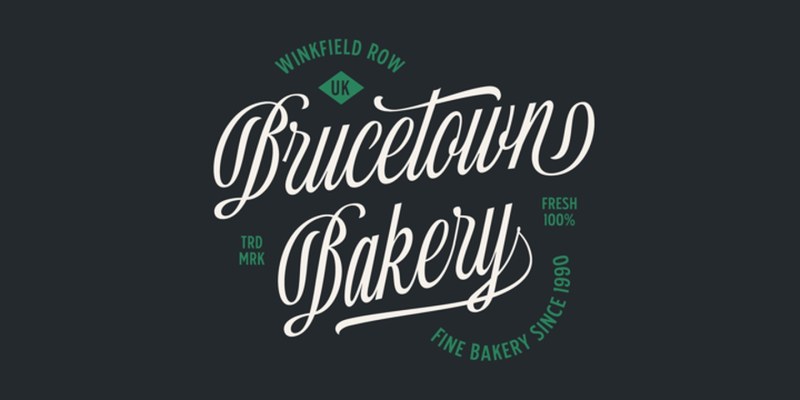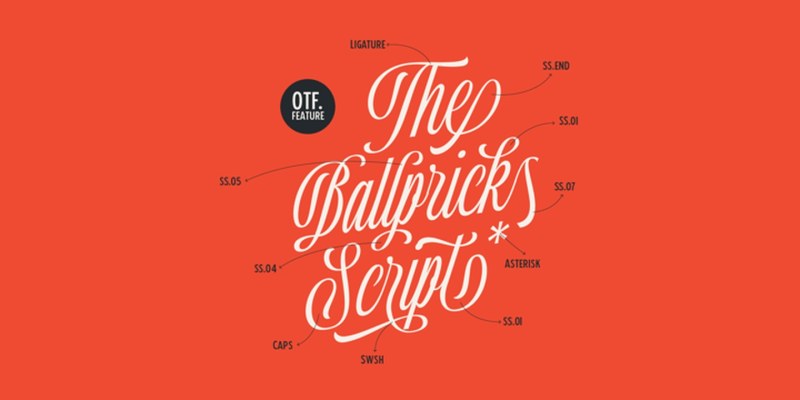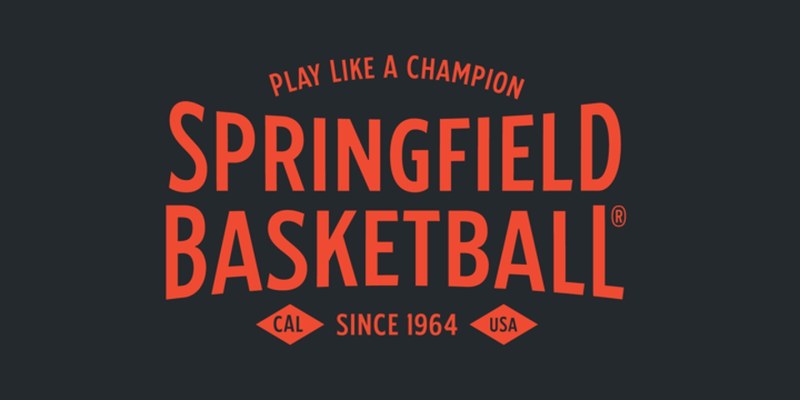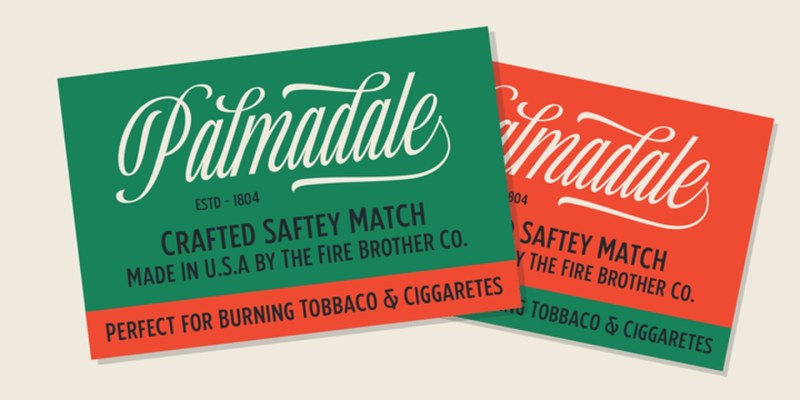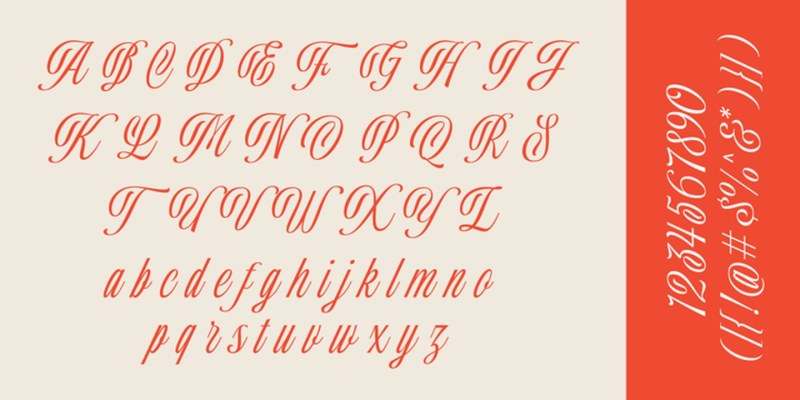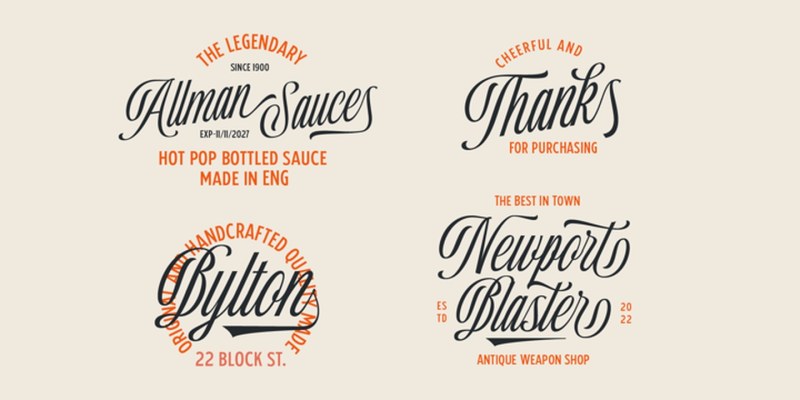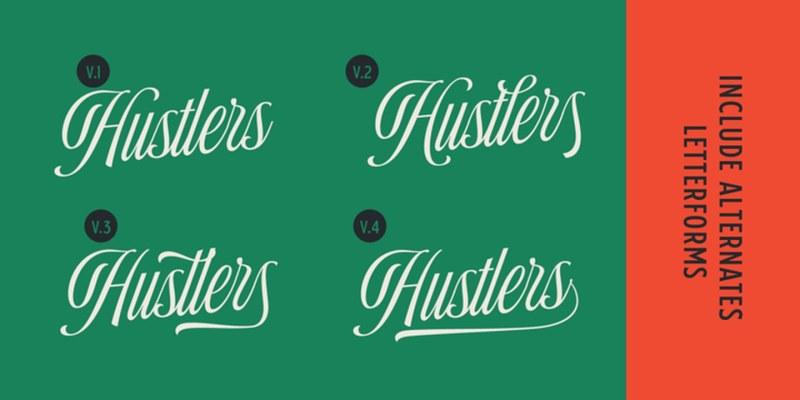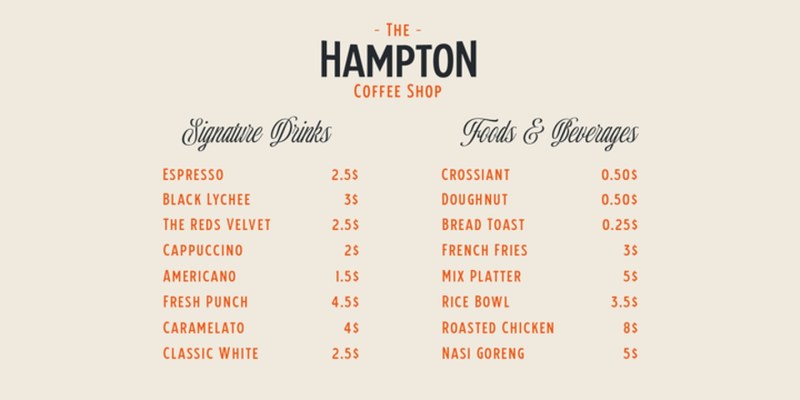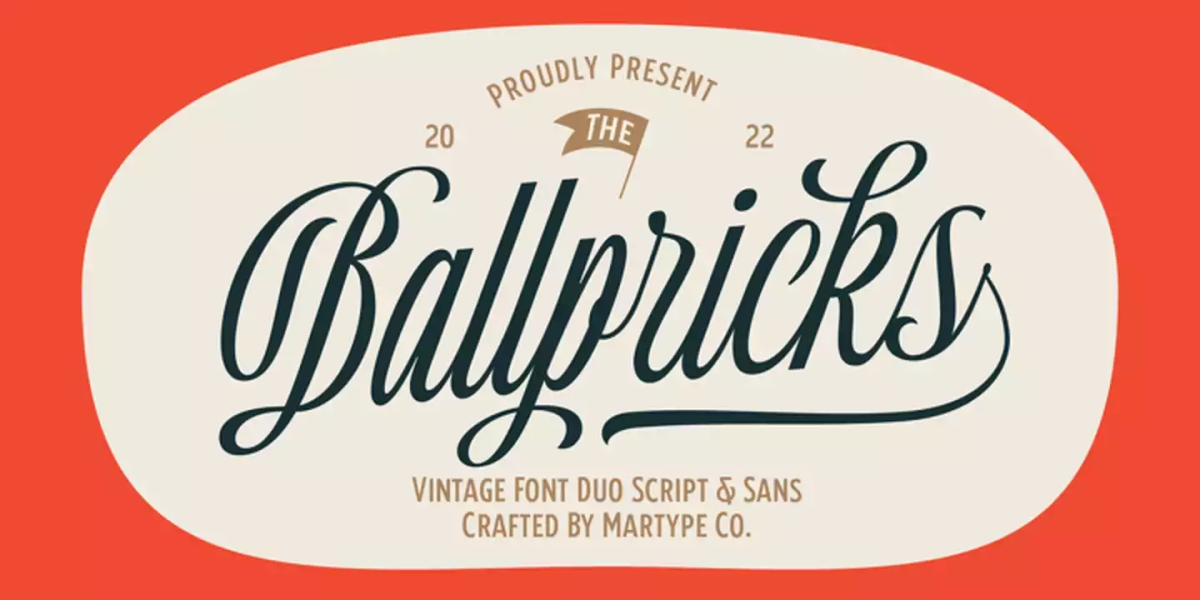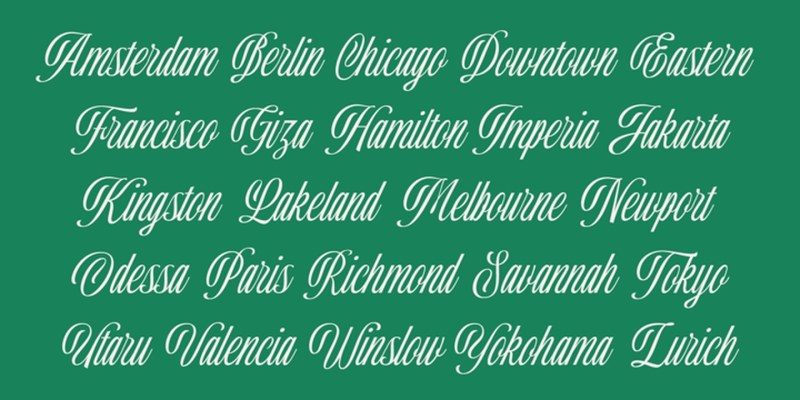
Ballpricks Font Family
Ballpricks Script is a vintage script font designed with carefully handcrafted. Good for branding, T-shirts, label design, any vintage and retro design, headlines, logot…
Ballpricks Script is a vintage script font designed with carefully handcrafted. Good for branding, T-shirts, label design, any vintage and retro design, headlines, logotypes, and any project with script font purposes. This font also can make you happy when you design something even that you don’t like, and of course, this font makes your design flawless and come with reasonable prices for this unique font. Multilingual Support support many different languages 20+.
Where Ballpricks Font Family works best
Ballpricks Font Family brings a personal, handwritten warmth to invitations, menus and place cards.
Craft brands — coffee, cosmetics, bakery — use scripts like Ballpricks Font Family for signature-style logos and labels.
Pair Ballpricks Font Family with a plain sans for quotes, stories and Pinterest pins that feel handmade.
What is Ballpricks Font Family good for?
Ballpricks Font Family is a Script And Handwritten typeface tagged Branding, Packaging, Retro, Script. It works well for headlines, logos, posters, social media graphics and branding projects that need a distinctive script and handwritten look.